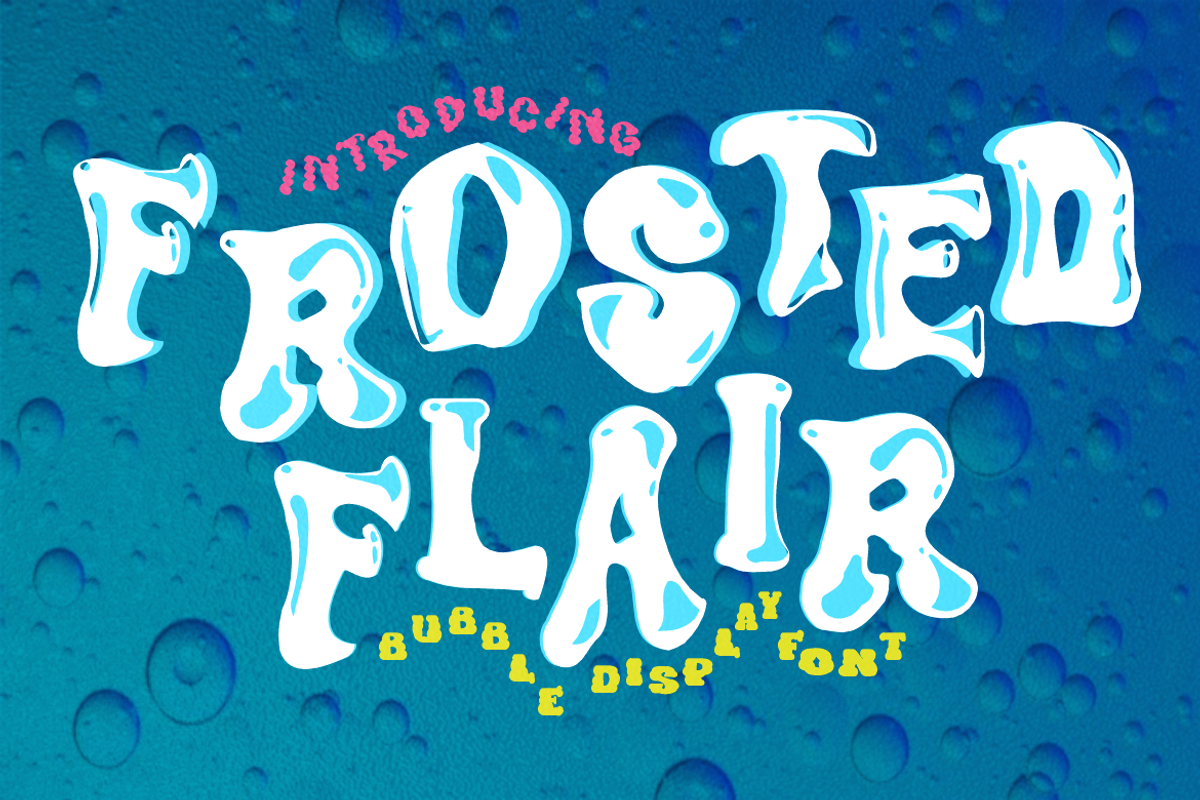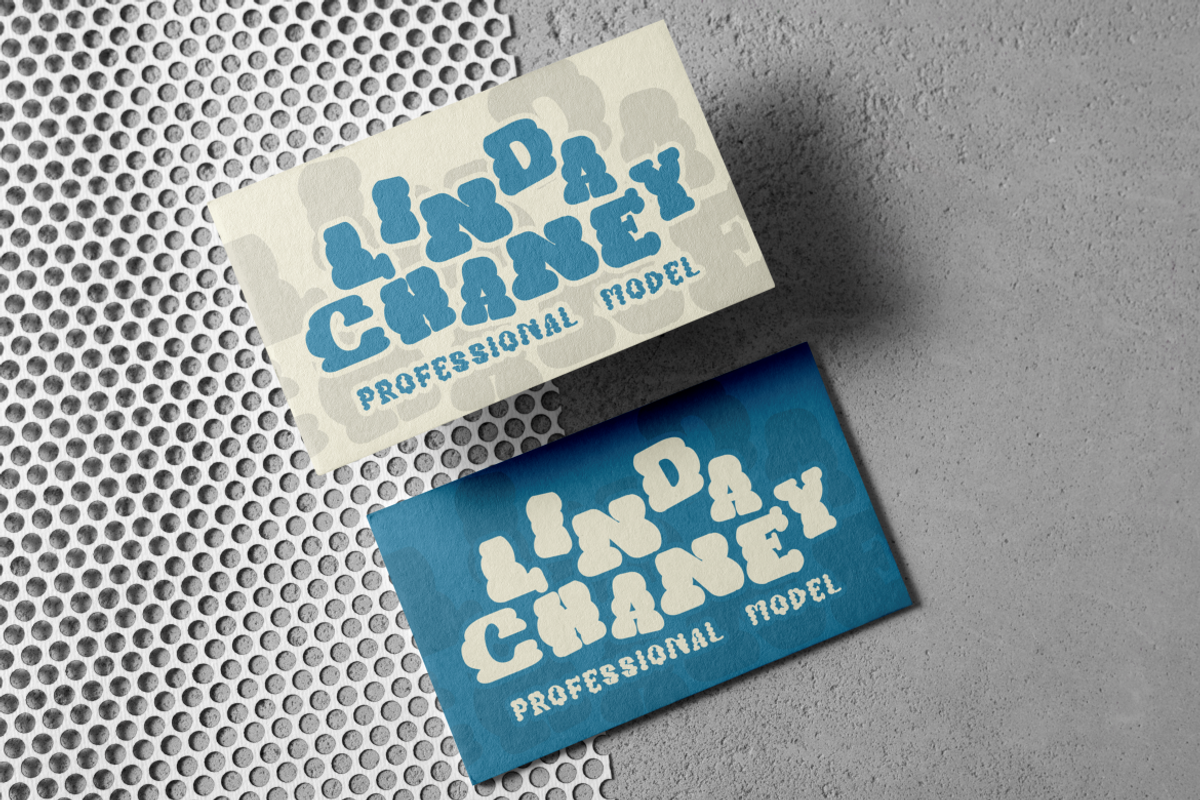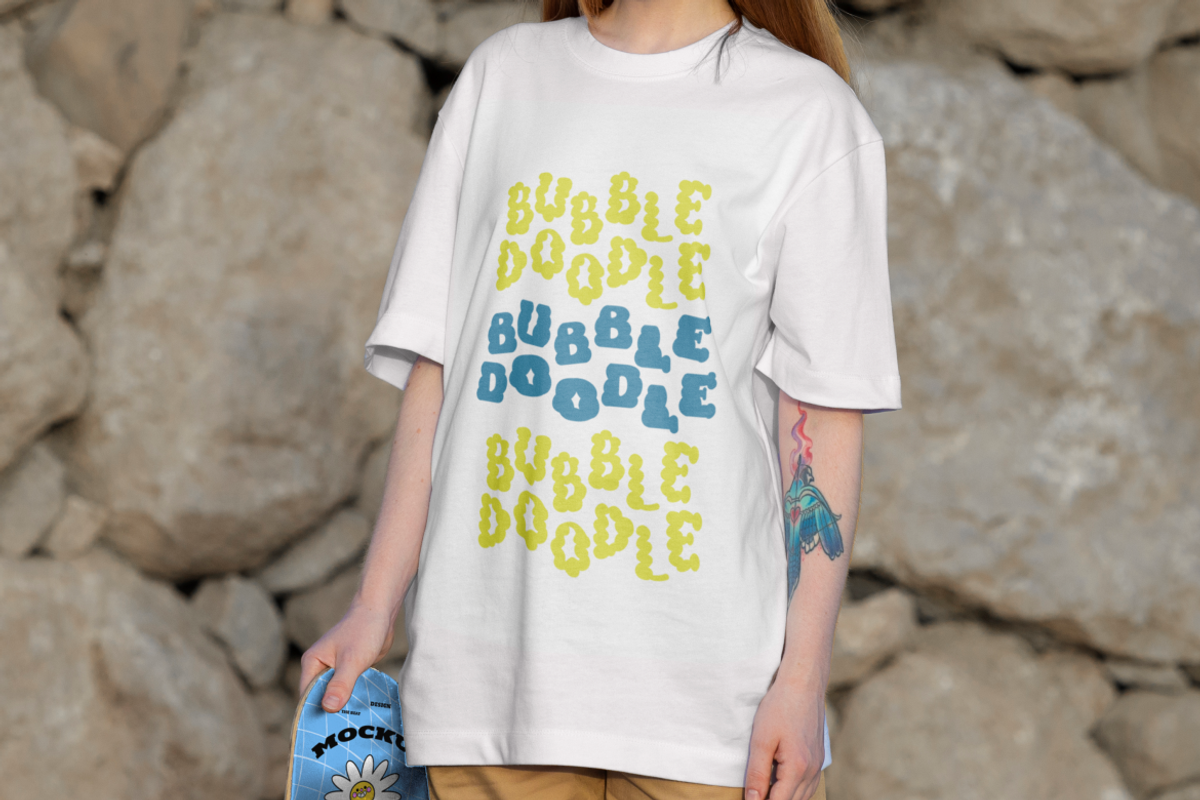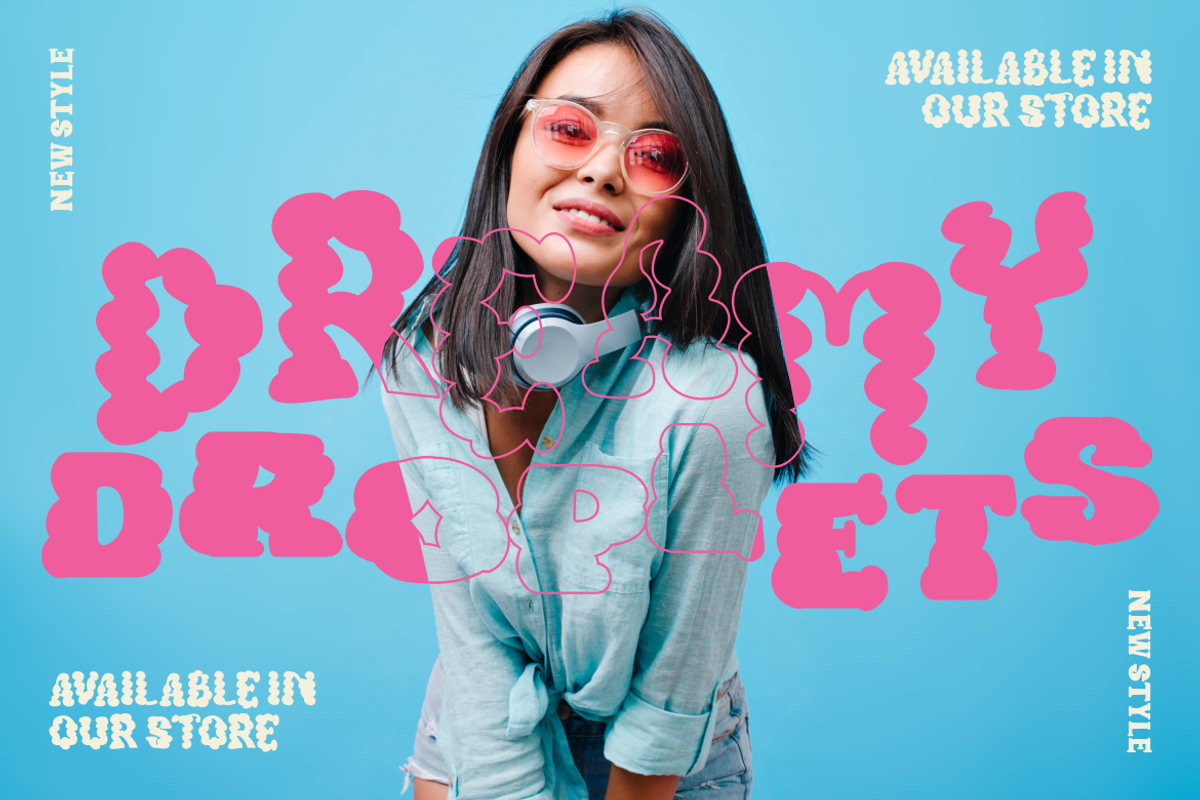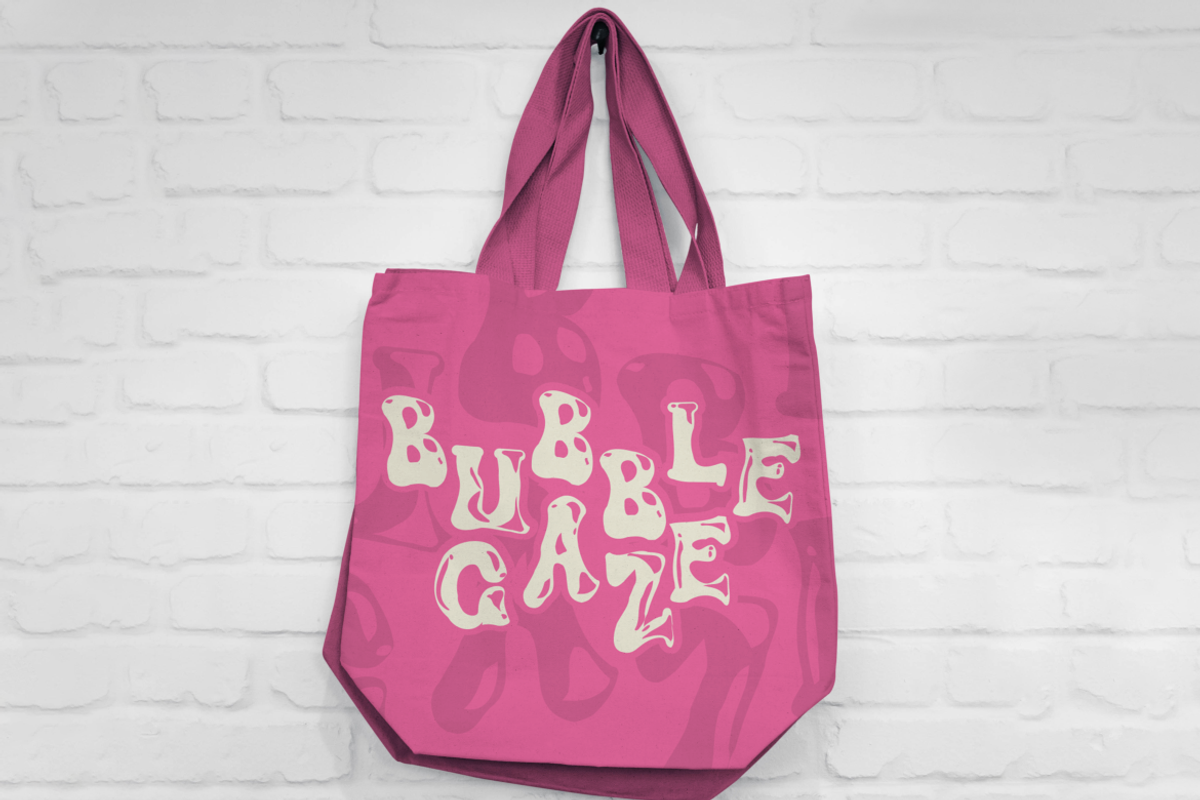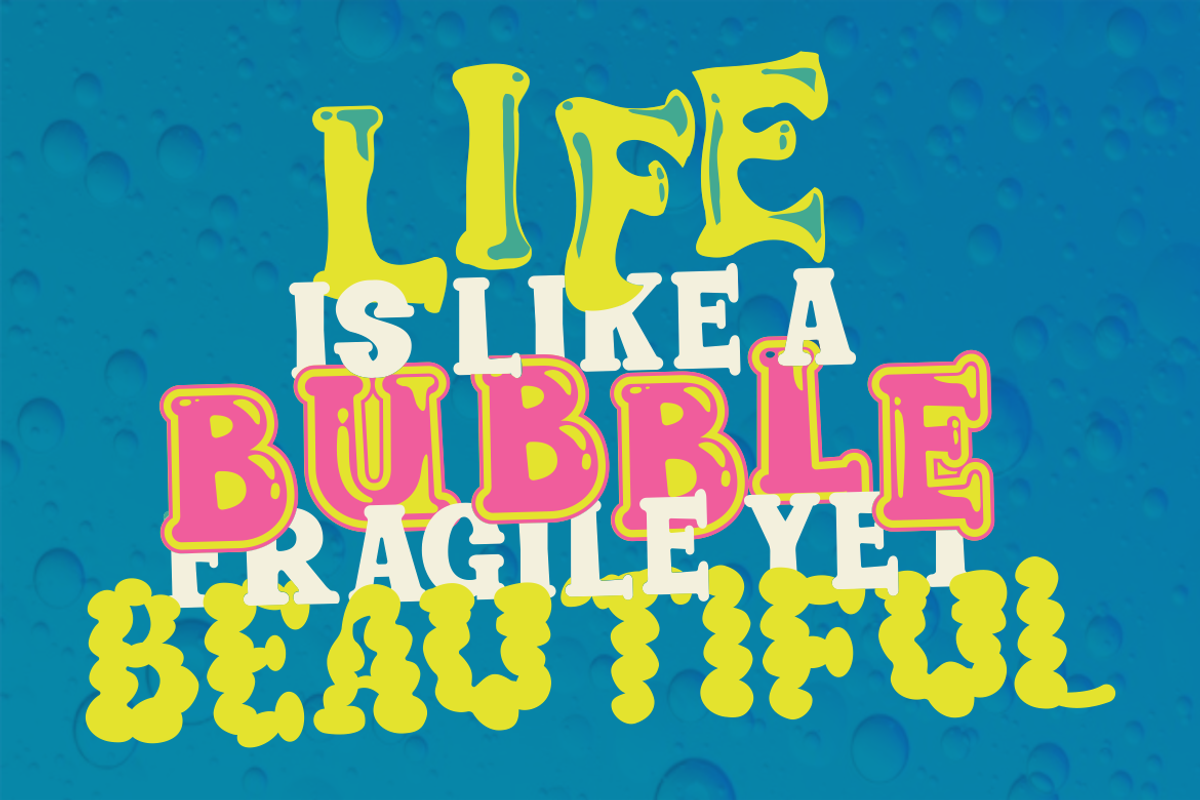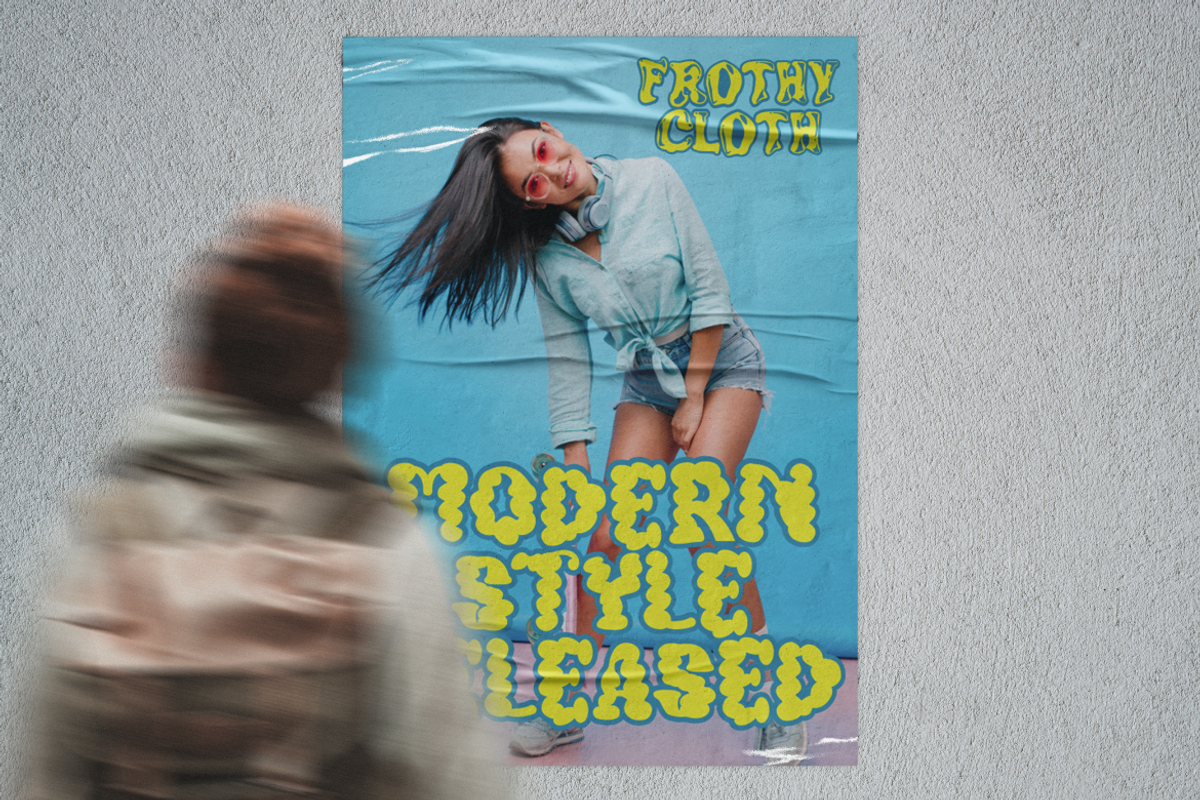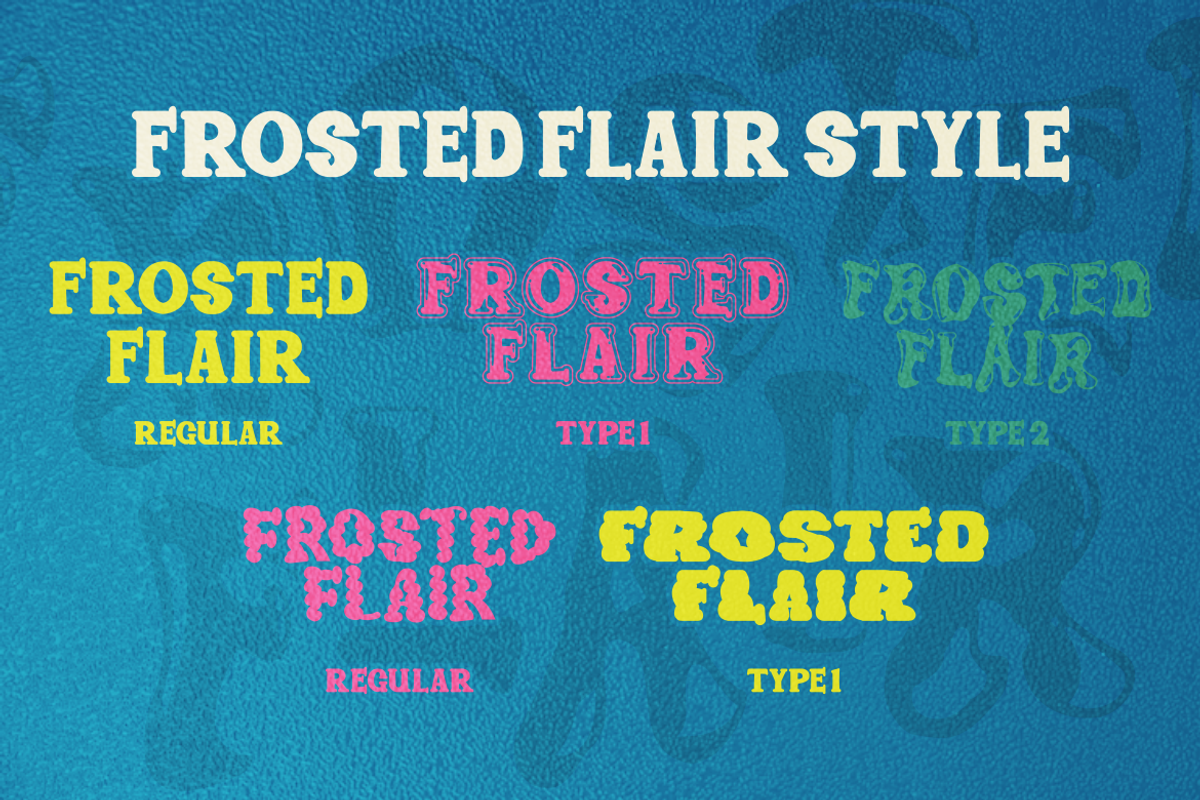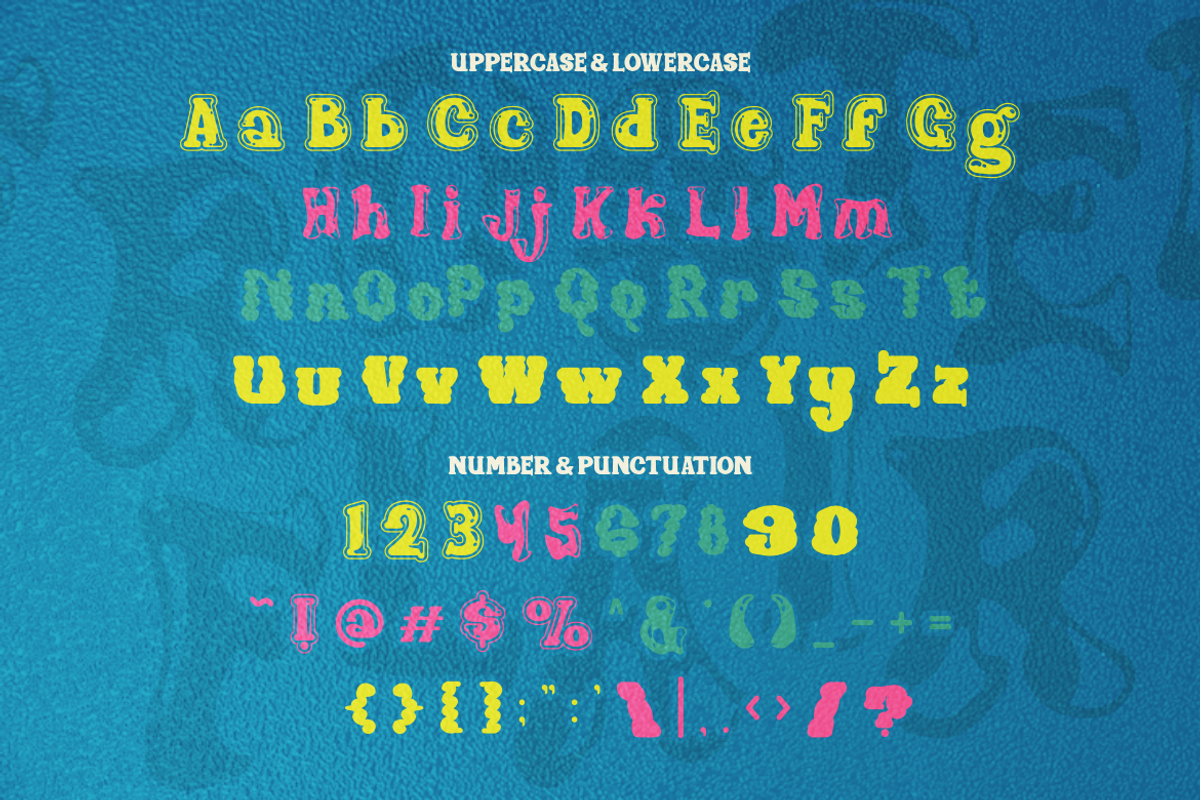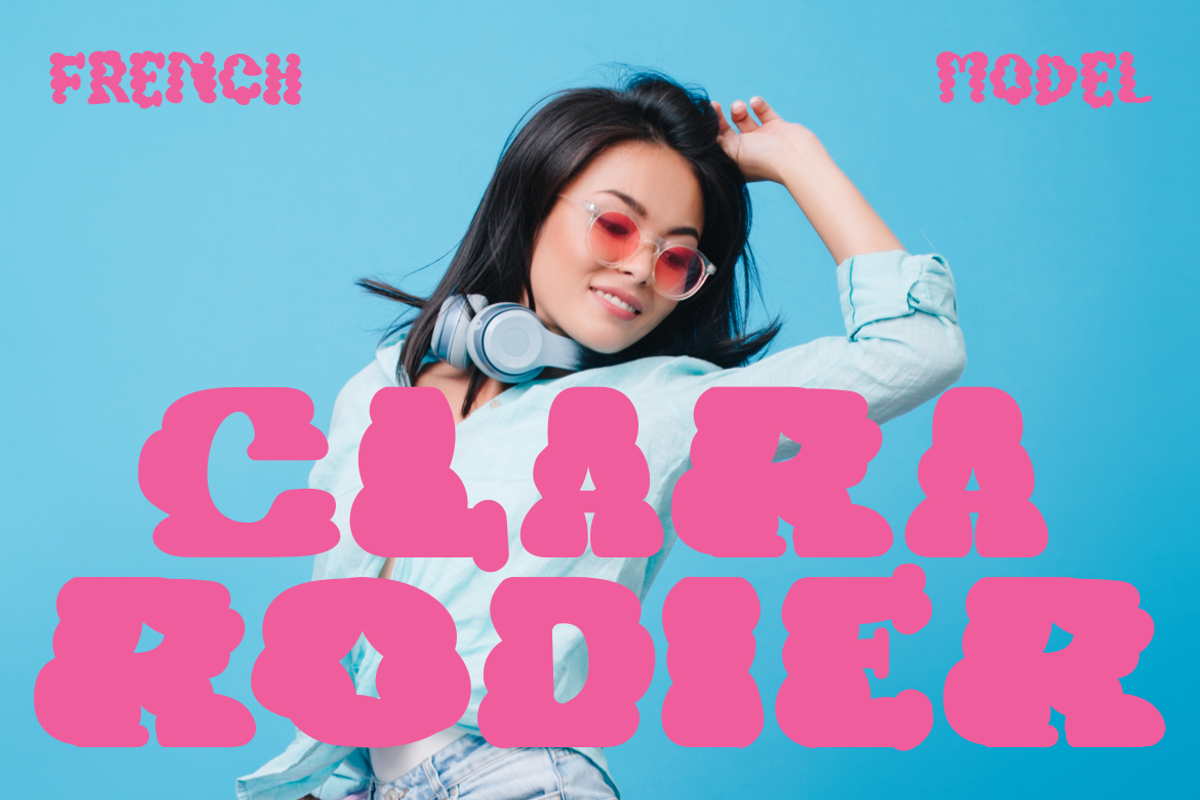
Frosted Flair - Bubble Display Font
Immerse yourself in the effervescent charm of Frosted Flair - Bubble Display Font, a typeface that captures the essence of liquid motion and playful buoyancy. This font is a celebration of the fluidity and translucence of water, encapsulated in the form of bubbles that seem to pop out of the page. Each character is crafted to embody the lightness and grace of a bubble, making it an ideal choice for designs that require a touch of whimsy and imagination. Whether you’re creating a logo that needs to stand out, branding that wants to make a splash, or crafting an invitation that bubbles with excitement, Frosted Flair will carry your message on a wave of creativity.
With Frosted Flair, your text becomes an ocean of possibilities, where words float and flow with a playful ease. This display font is perfect for packaging that needs to catch the eye, posters that aim to captivate, and titles that deserve to be noticed. It’s also a delightful pick for business materials that want to convey innovation, greeting cards that express joy, and children’s books that spark wonder. Dive into the design depths with Frosted Flair and let your projects bubble over with personality and style.